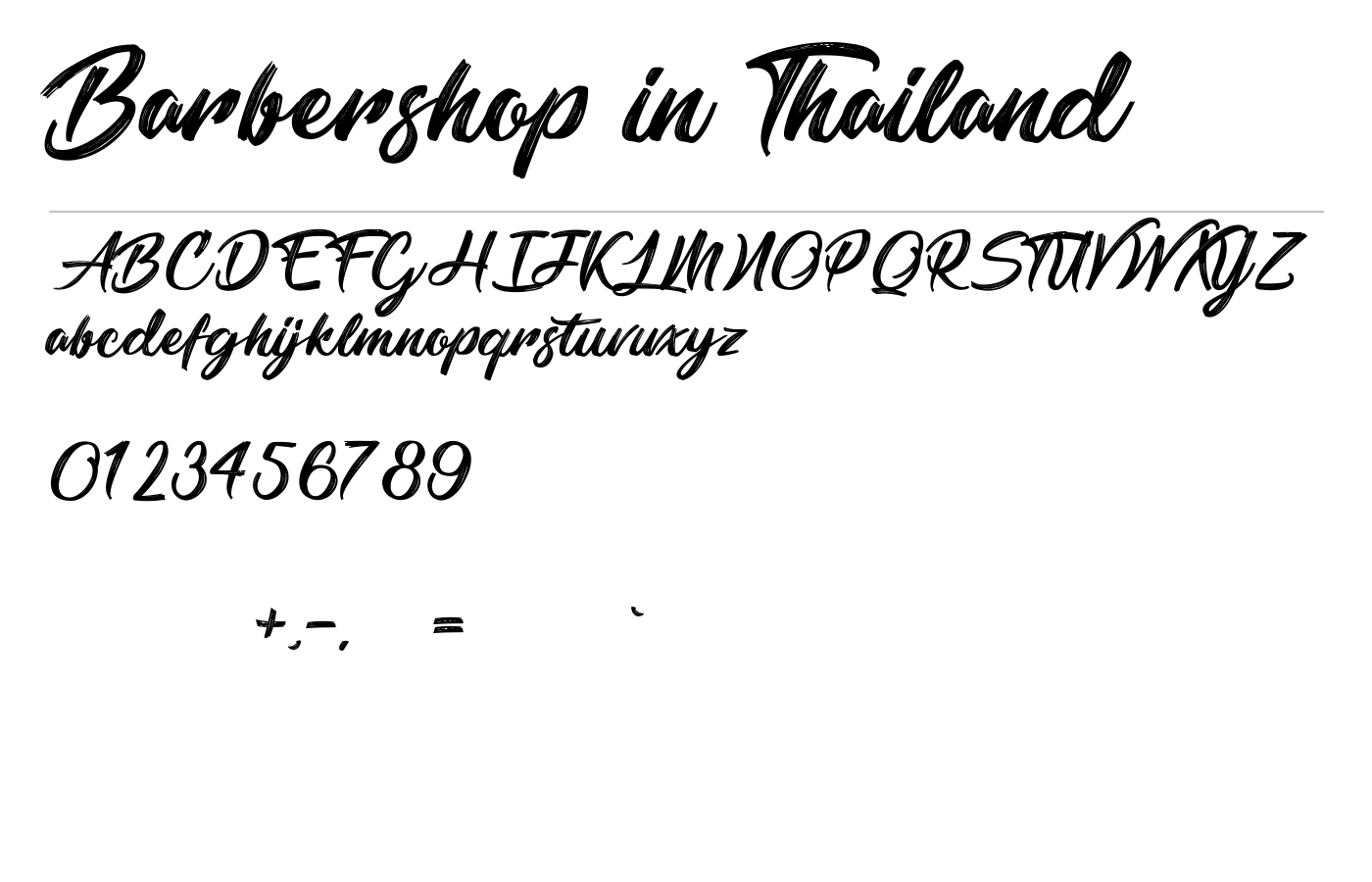
Barbershop in Thailand is a bold, energetic brush script font that blends casual charm with a handcrafted feel. Its fluid, textured strokes and dynamic letterforms make it perfect for creative branding, packaging, and eye-catching headlines that want to convey warmth and personality. This font shines in projects that seek a lively, artistic vibe with a touch of modern flair.
Barbershop in Thailand Font
About Barbershop in Thailand Font